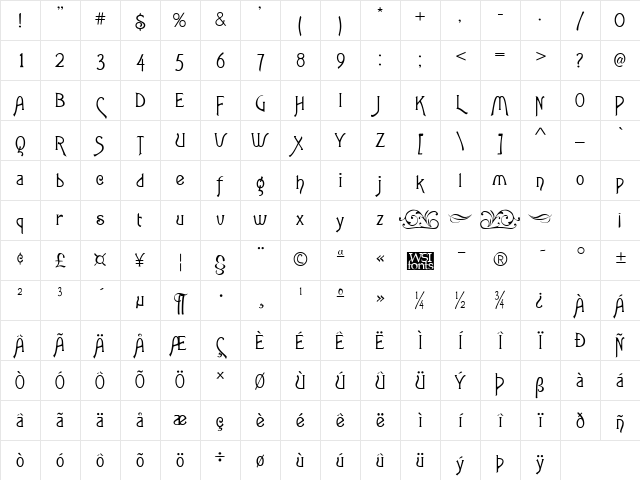
Complete Agatha-Modern Regular glyph index. Displaying only characters natively supported by Agatha-Modern Regular font.
Agatha-Modern is a composed and adaptable typeface that performs quietly and consistently across a wide range of design contexts.
Who designed the Agatha-Modern Regular font?